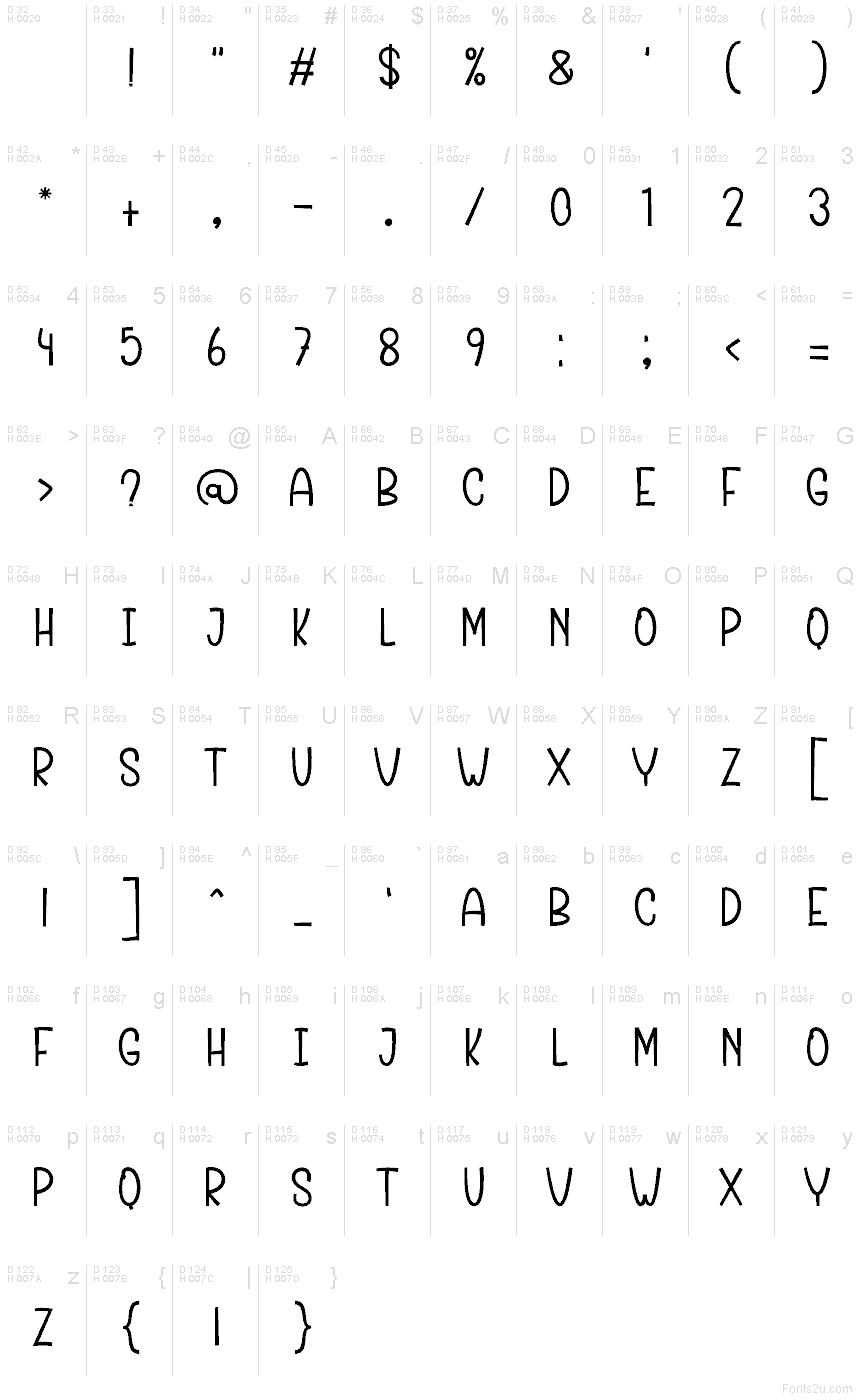
Birthday Christmas
Birthday Christmas font by Scratchones is a free handwritten condensed font combining retro vibes with a modern style. Its amoeba-like shapes and irregular proportions give it character, while its light width and uneven baseline maintain a general playful appearance that’s both unique and eye-catching.
The quirky look of this expressive typeface makes it ideal for greeting cards, merchandise packaging, children’s books titles, comic covers, cartoon posters, logos and branding projects. Use it in special retro-themed invitations or any other creative artwork or project!